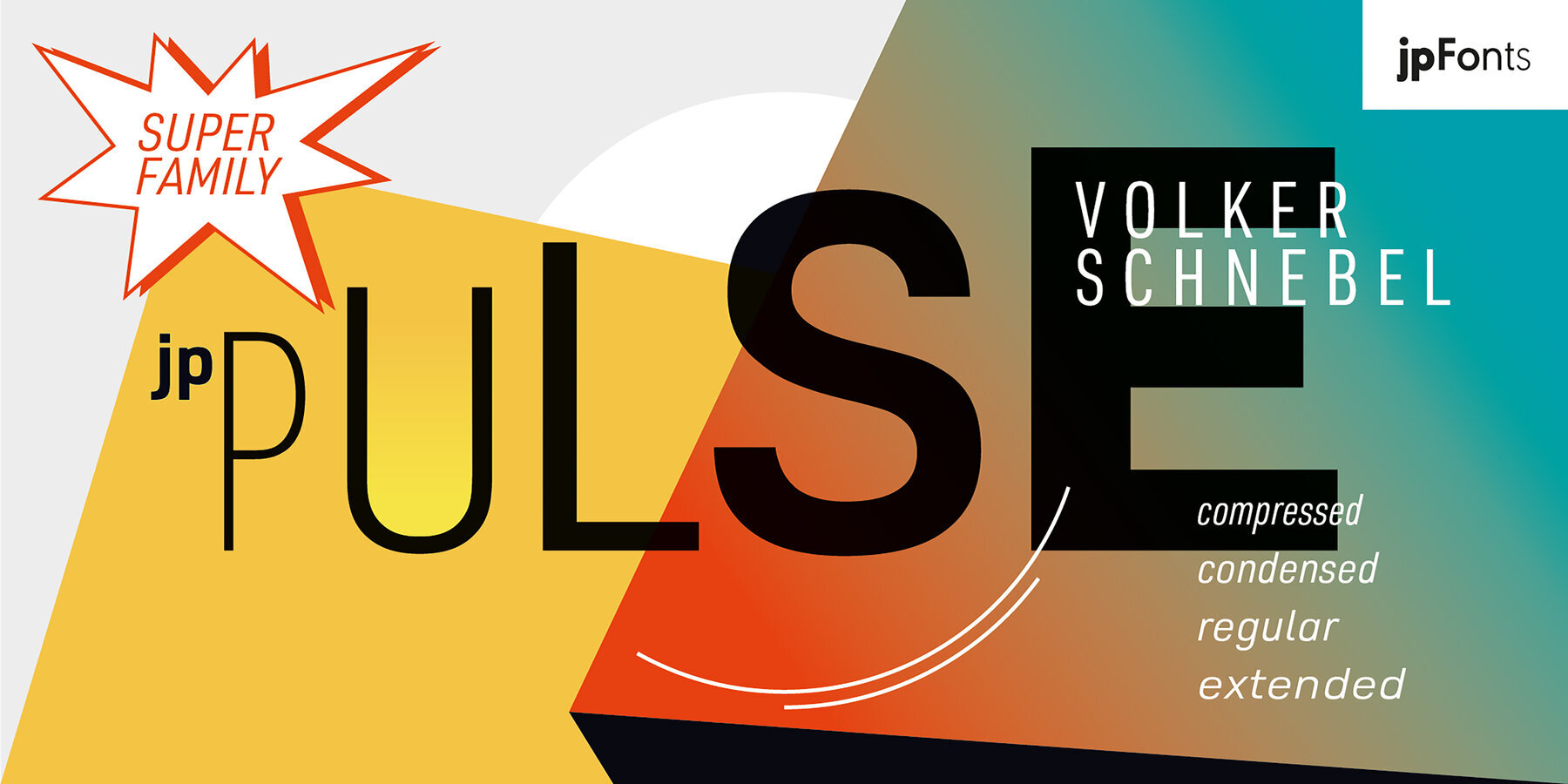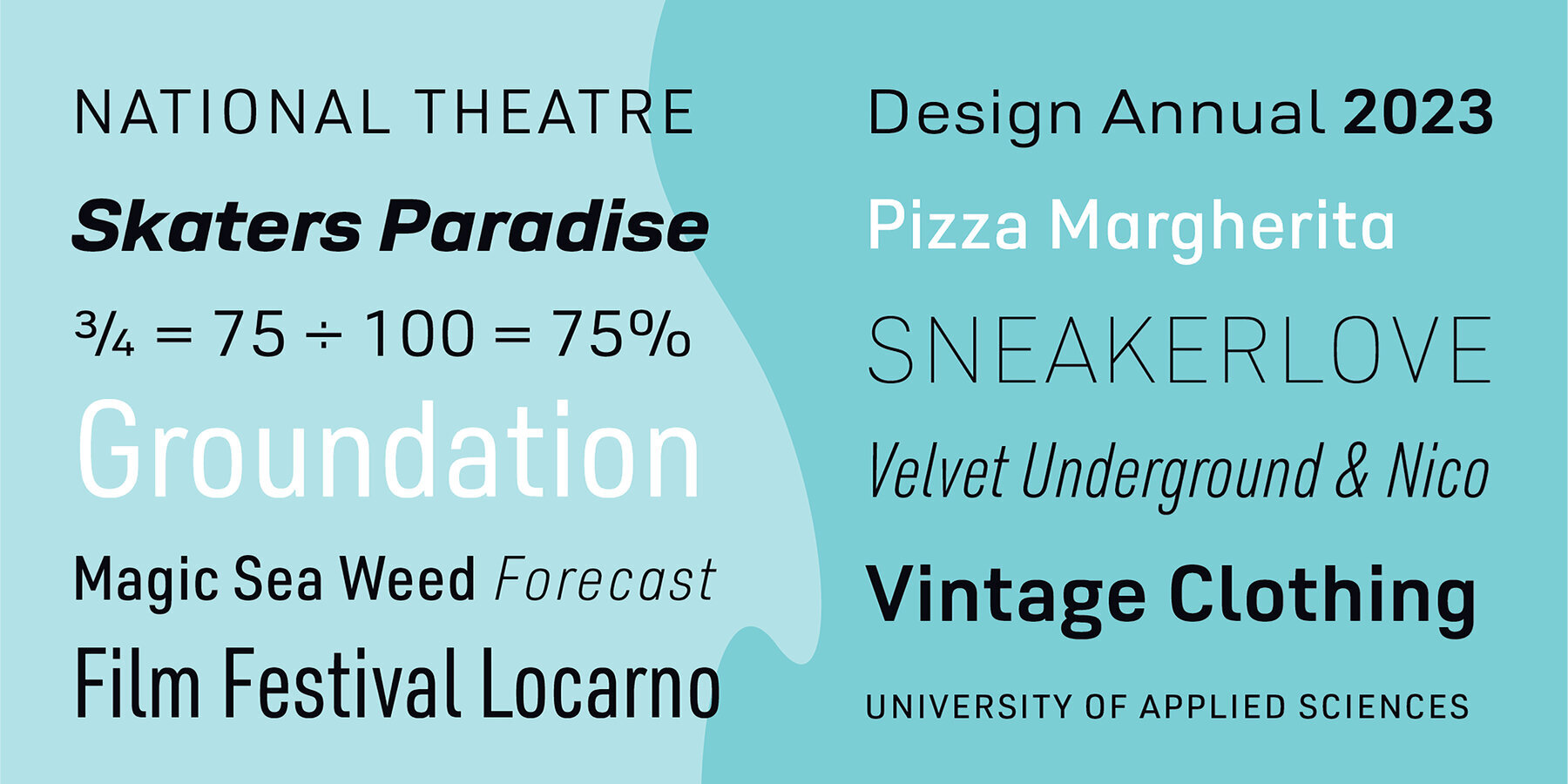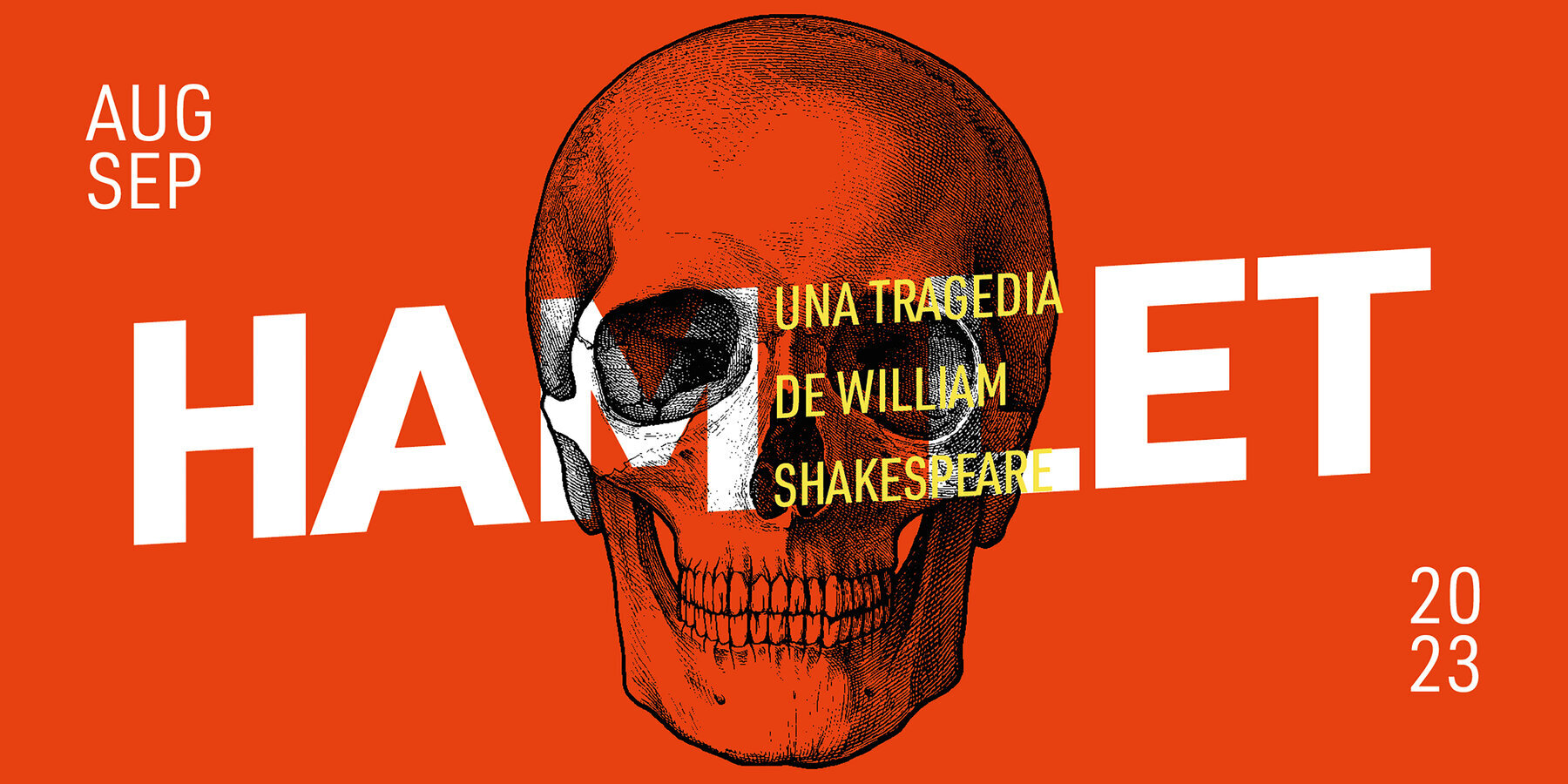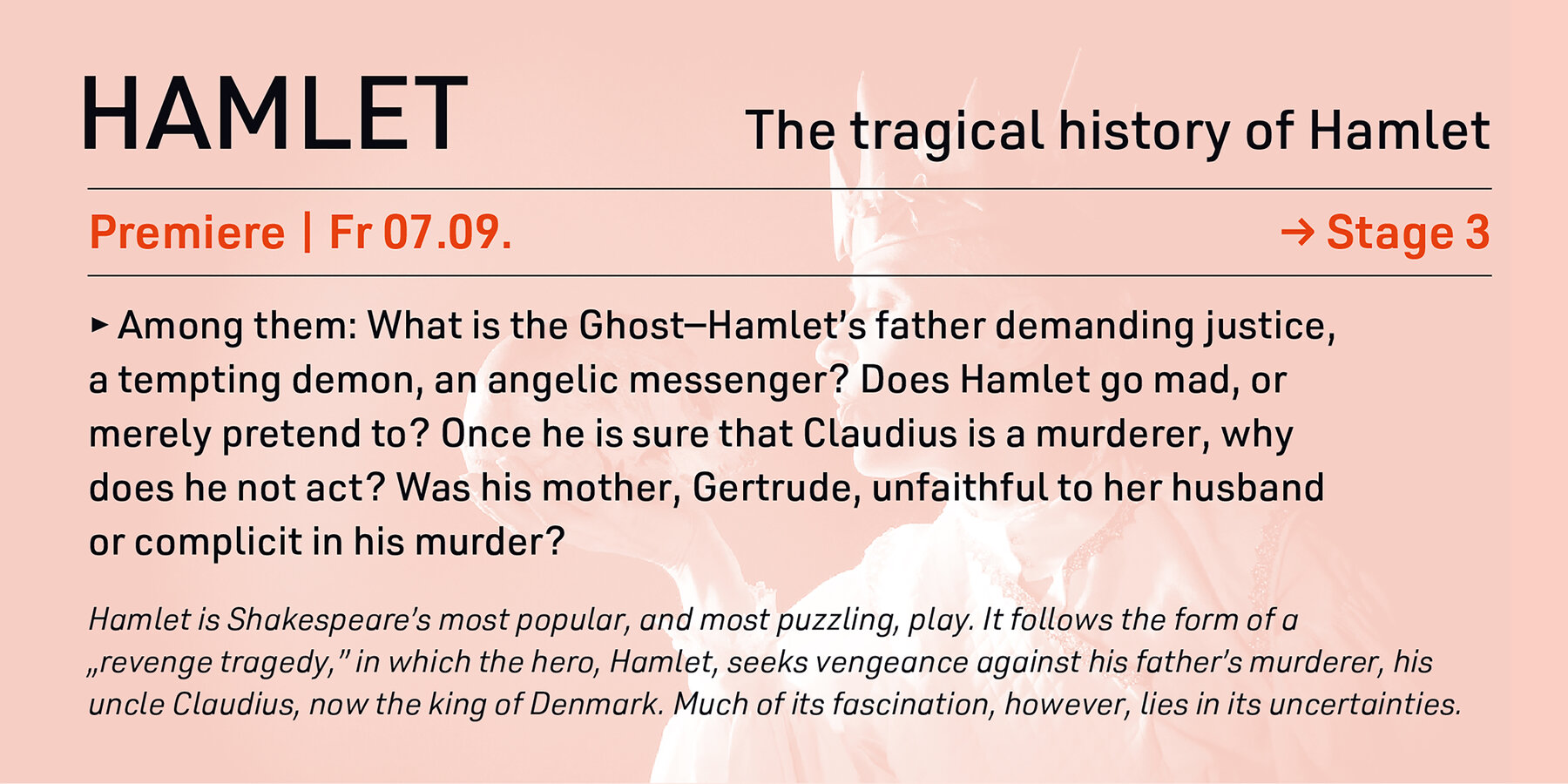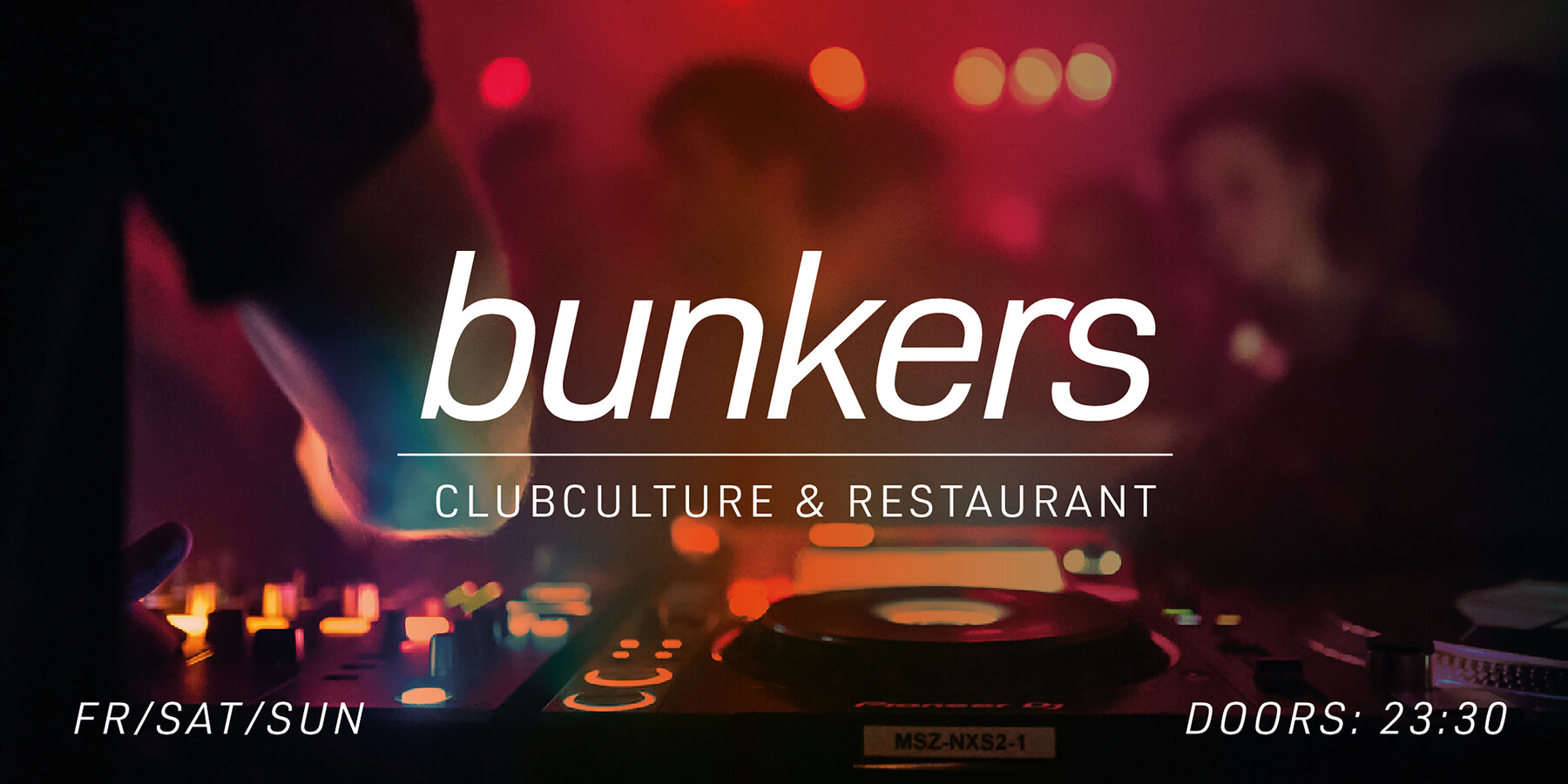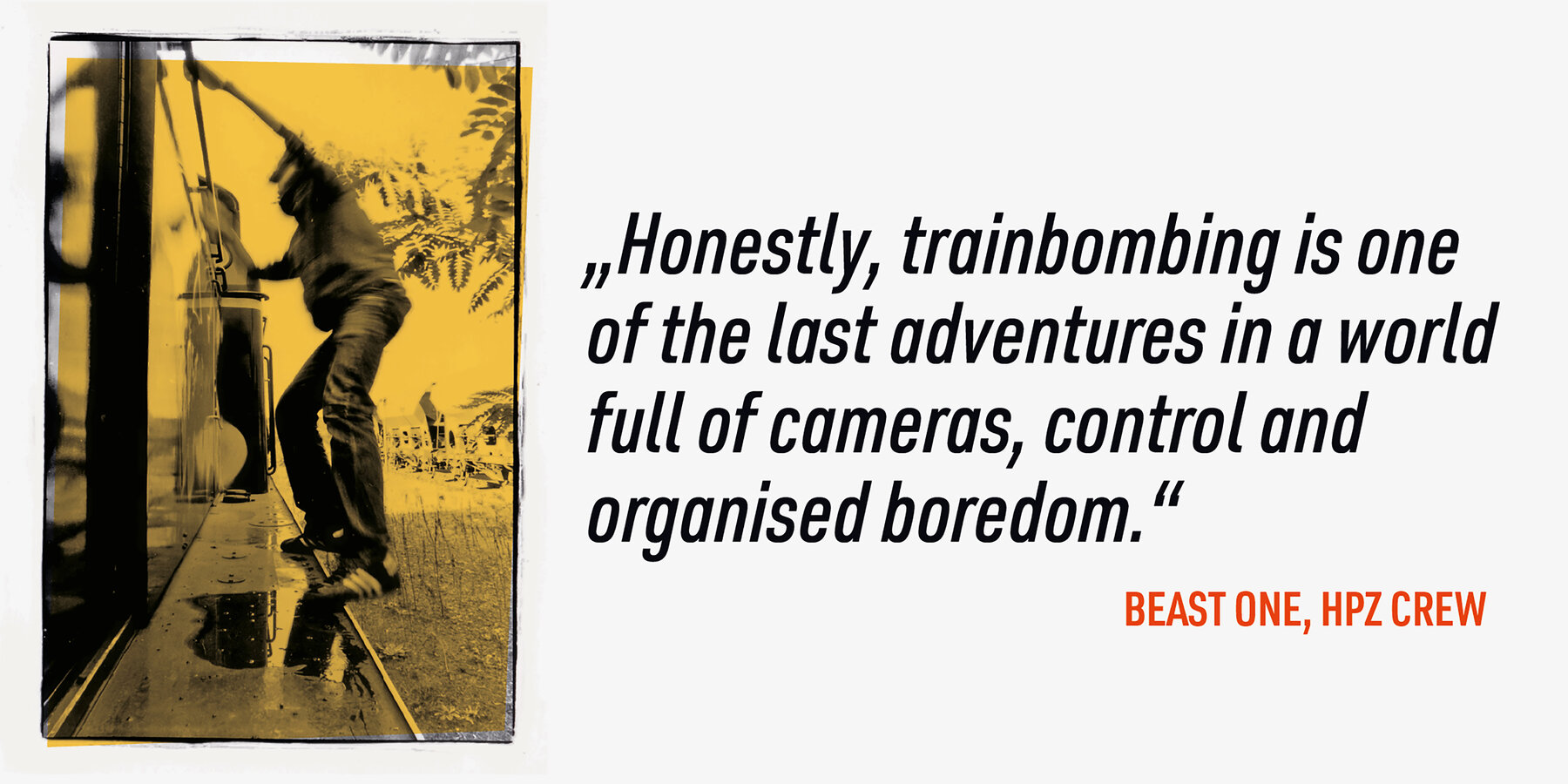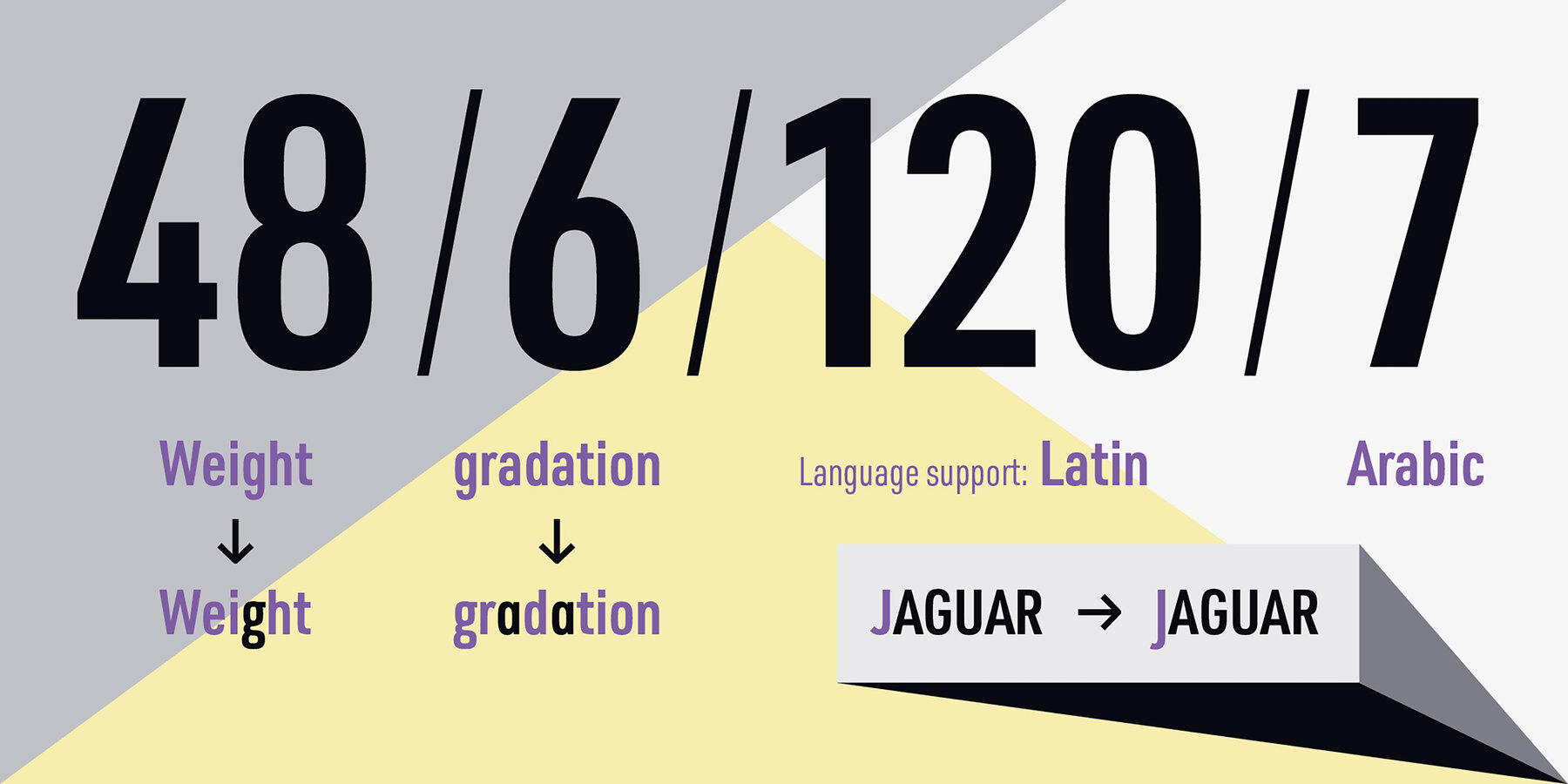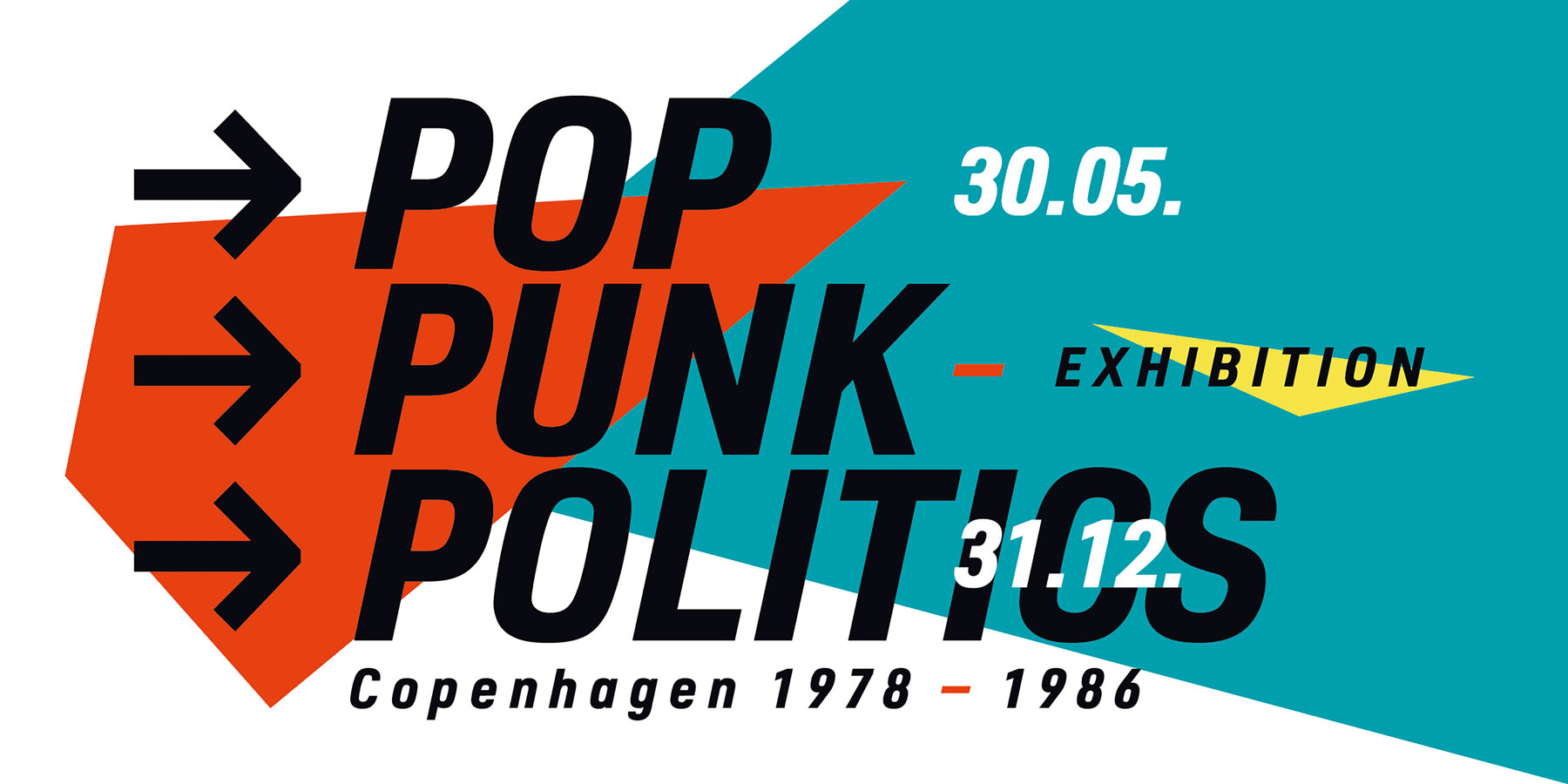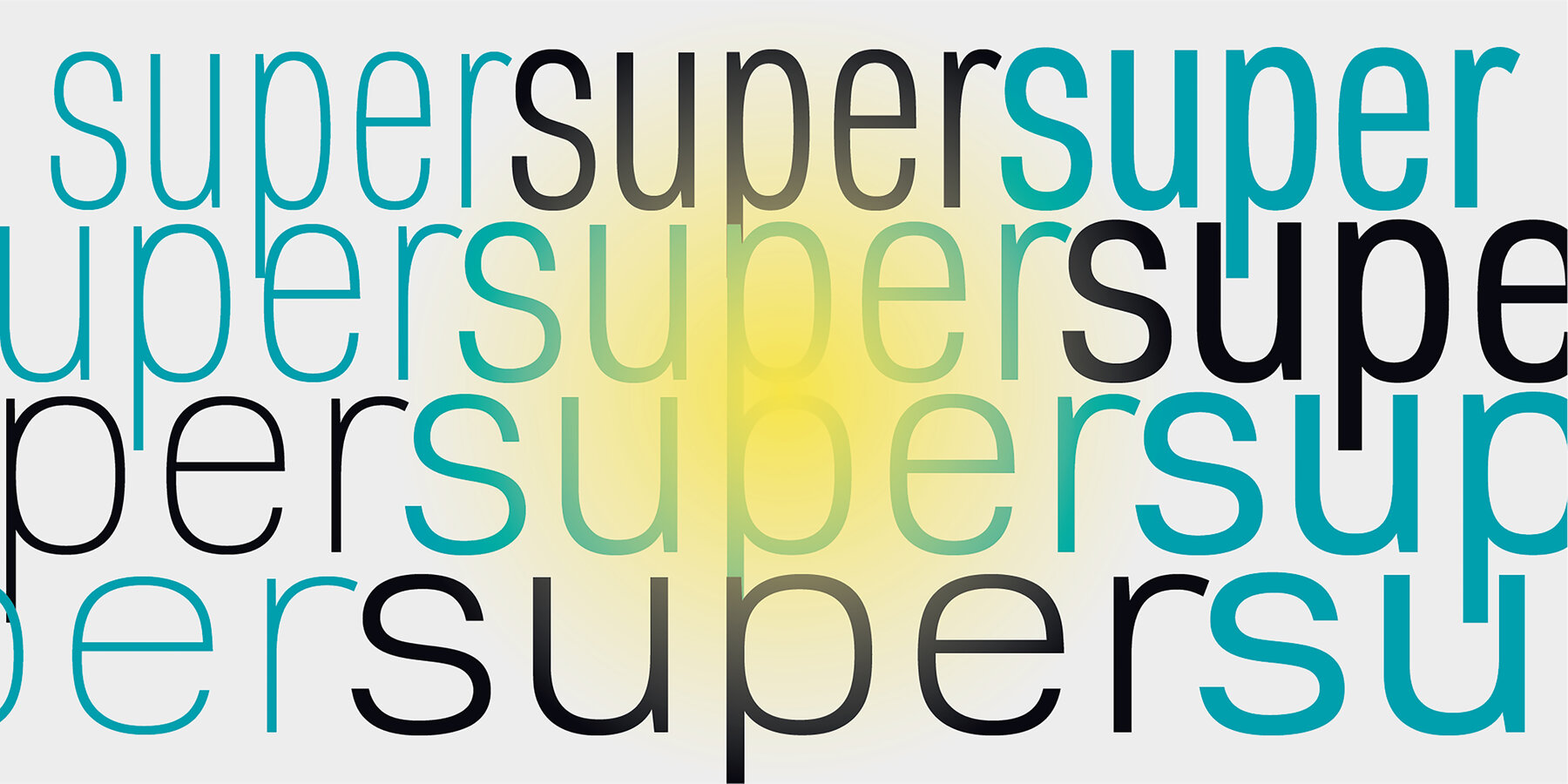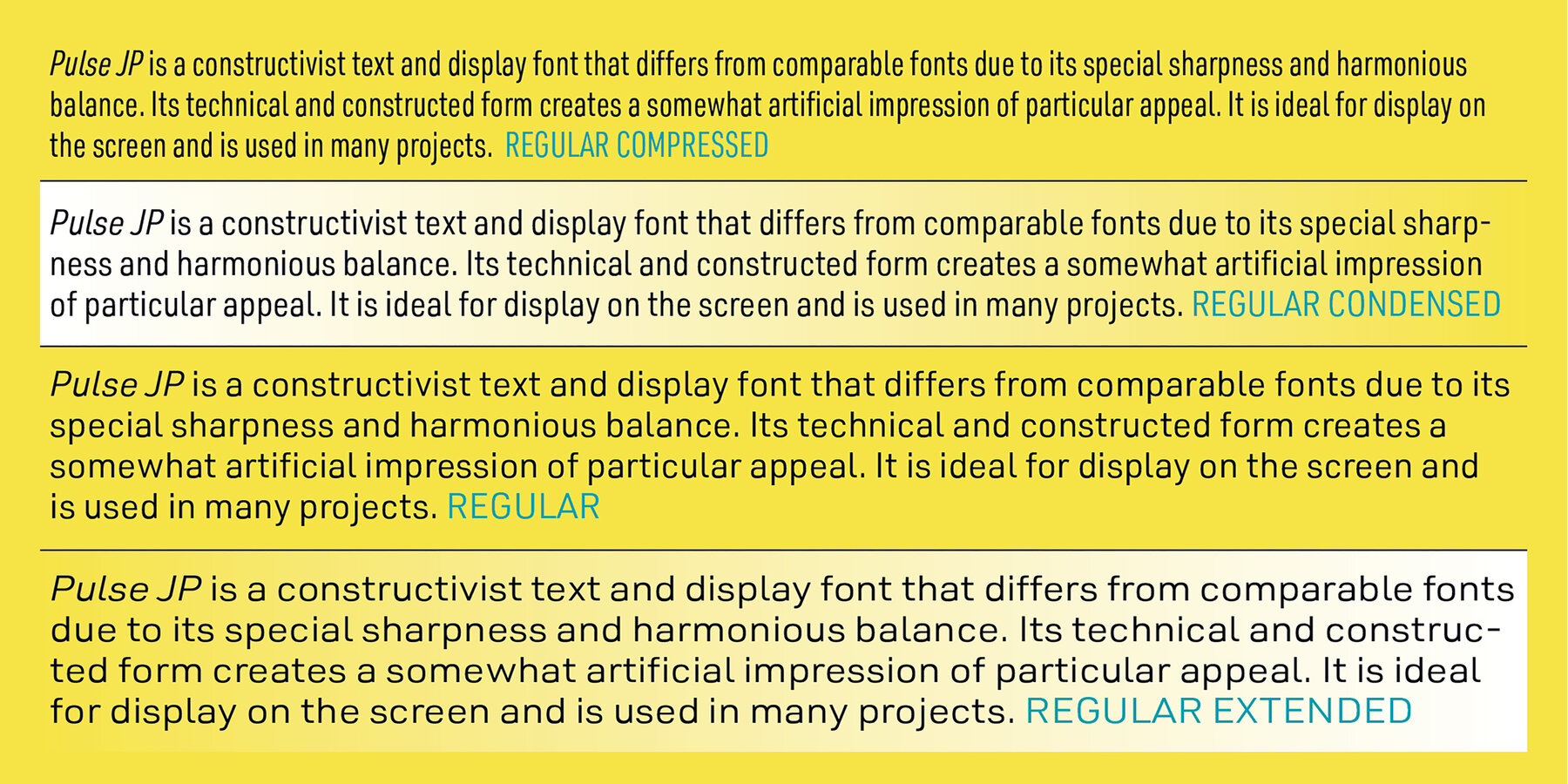
Pulse JP Font
Pulse JP is a constructivist text and display font that differs from comparable fonts due to its special sharpness and harmonious balance. Its technical and constructed form creates a somewhat artificial impression of special appeal. It is ideal for display on the screen and is used in many projects. Pulse JP is a super family consisting of 48 weights from compressed to expanded in 6 fat gradations each. This opens up a wide range of designs and the possibility of combining typefaces of the same character in a wide variety of variants, or of being able to adapt typefaces to very different conditions.
The details of the individual typefaces are coordinated with each other with great precision and perfectly implemented in terms of craftsmanship. In all variants, this leads to a well-balanced typeface with particular sharpness. The very extensive character set supports 120 Latin languages. Pulse JP meets the pulse of the times, which is in a transition away from the humanistic to the classicistic designs.
jp Pulse outperforms many other fonts not only in terms of sharpness but also in terms of variety and is therefore always a good choice.